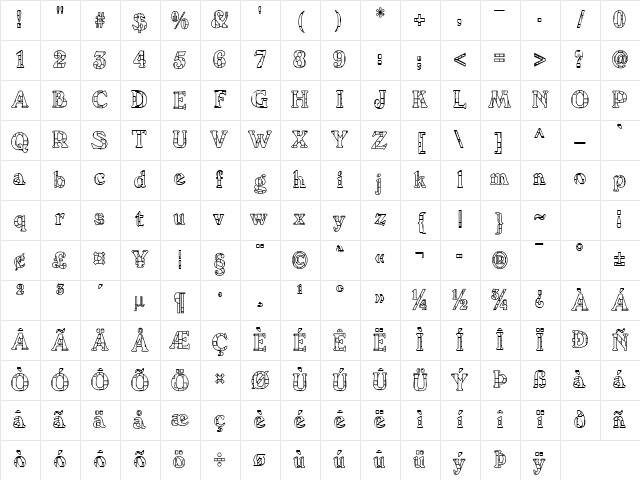
WendonLaby Becker Normal
Design Context for WendonLaby Becker
WendonLaby Becker is a composed and adaptable typeface that performs quietly and consistently across a wide range of design contexts.